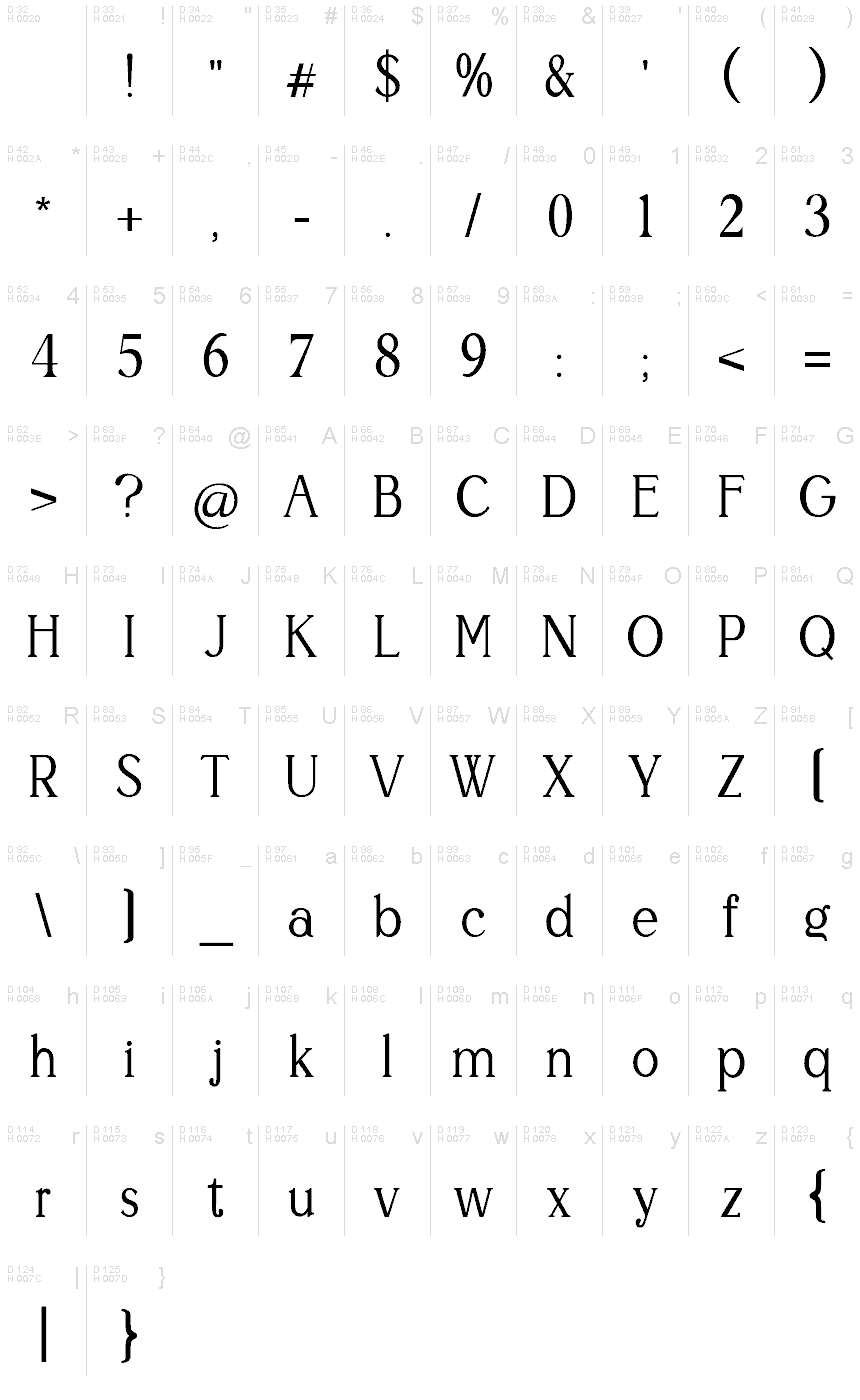
Weigeland
Weigeland font is a classic serif typeface by UI Creative characterized by distinctive strokes and letter terminators, which set it apart from other basic fonts. The elegant letters make this font a timeless and professional pick in an era of digital art. Like most serif fonts, Weigeland brings to you a classy feeling with the nostalgic touch of vintage design.